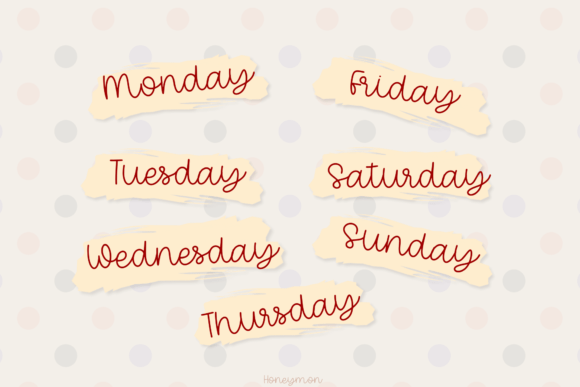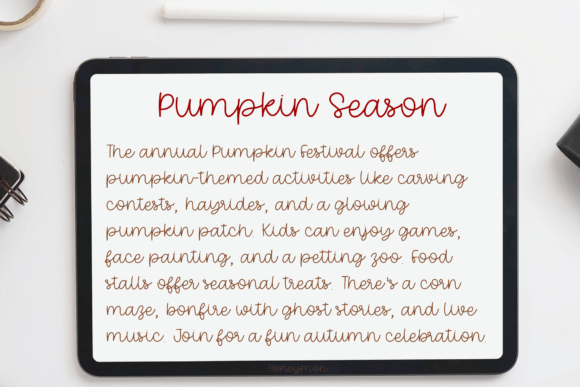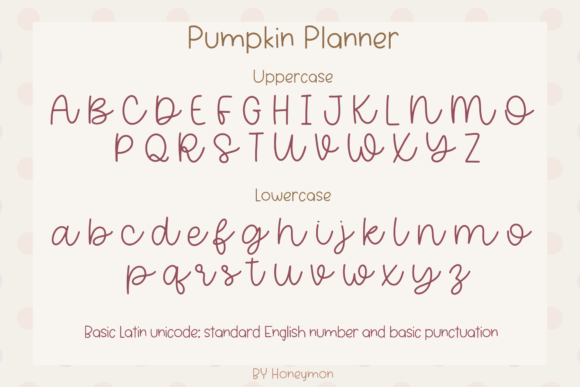
Pumpkin Planner Font
Pumpkin Planner is a cute and lovely handwritten script font. Its casual charm and fun personality are perfect for creating cozy autumn designs.